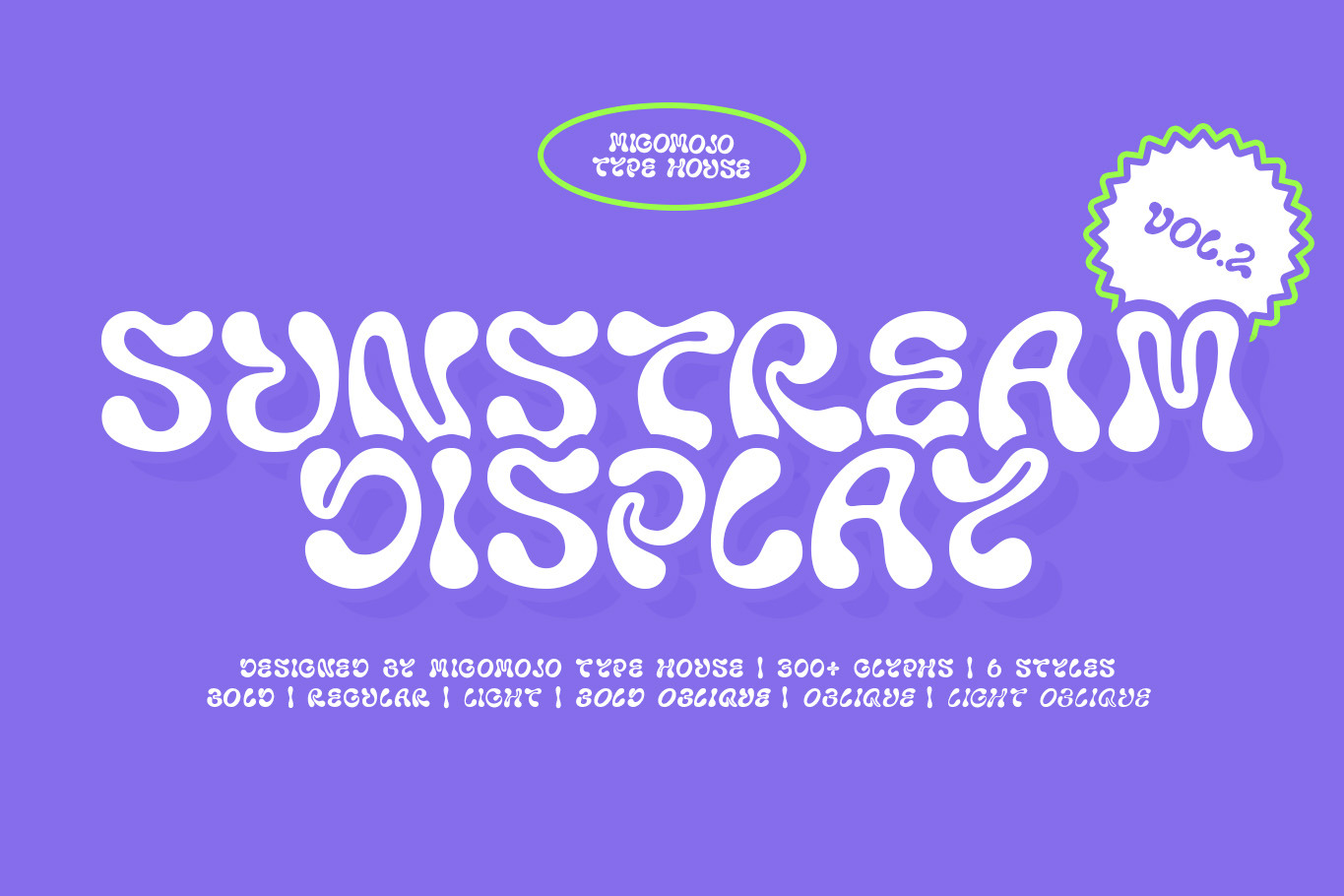
Sunstream Groovy Font
Sunstream is a synthetic form of typeface that captures a harmonious blend of natural curves and digital precision, transmuting and digitizing the beauty of flowing liquor into the font and embracing its own shape. Let’s bring back the sunshine, cheers!